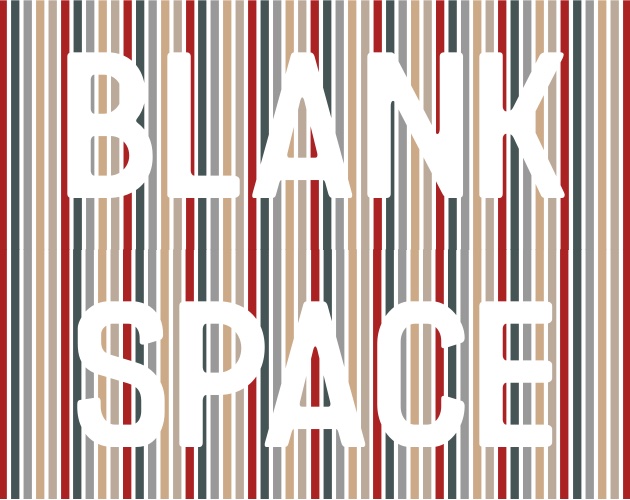
Secret Swift Font Club
Welcome to the Secret Swift Font Club, where i host the font files from my Rainbow Rocket font series that use the Taylor Swift colours.